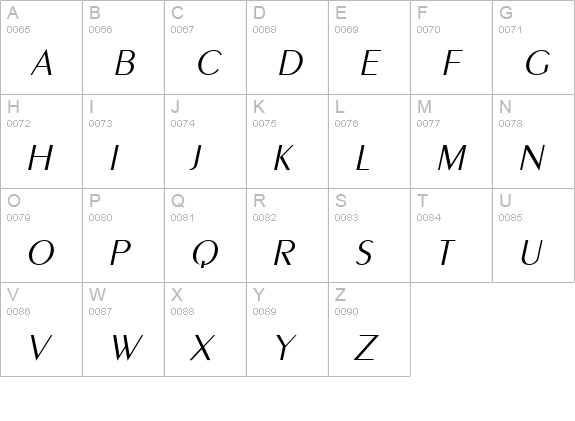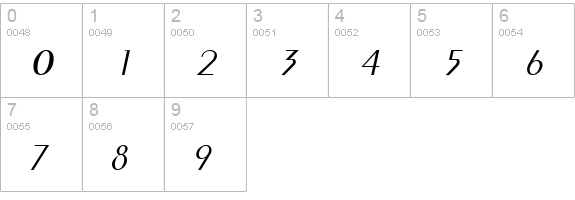
PenyaeLight Italic Font Details
PenyaeLight Italic is a distinctive, italic variant in the PenyaeLight typeface family \xE2\x80\x94 well suited to design and typography projects.
PenyaeLight Italic is a stunning and elegant font that exudes sophistication and grace. Its delicate and slanted letterforms create a sense of movement and fluidity, making it perfect for adding a touch of modernity to any design. This font features a unique combination of thin strokes and subtle curves, resulting in a harmonious balance between simplicity and intricacy. The soft italic style adds a touch of elegance and refinement, making PenyaeLight Italic an excellent choice for projects that require a sophisticated and polished look. Whether you are designing logos, branding materials, invitations, or any other creative projects, PenyaeLight Italic will elevate your designs to new heights. Its versatility allows it to be used in various contexts, whether it be for print or digital media. The best part is that PenyaeLight Italic is available for free! You can easily download this font at FontsMarket.com, where you will find a vast collection of high-quality fonts for all your design needs. So go ahead and unleash your creativity with the freely available PenyaeLight Italic font and give your designs a touch of elegance and modernity.